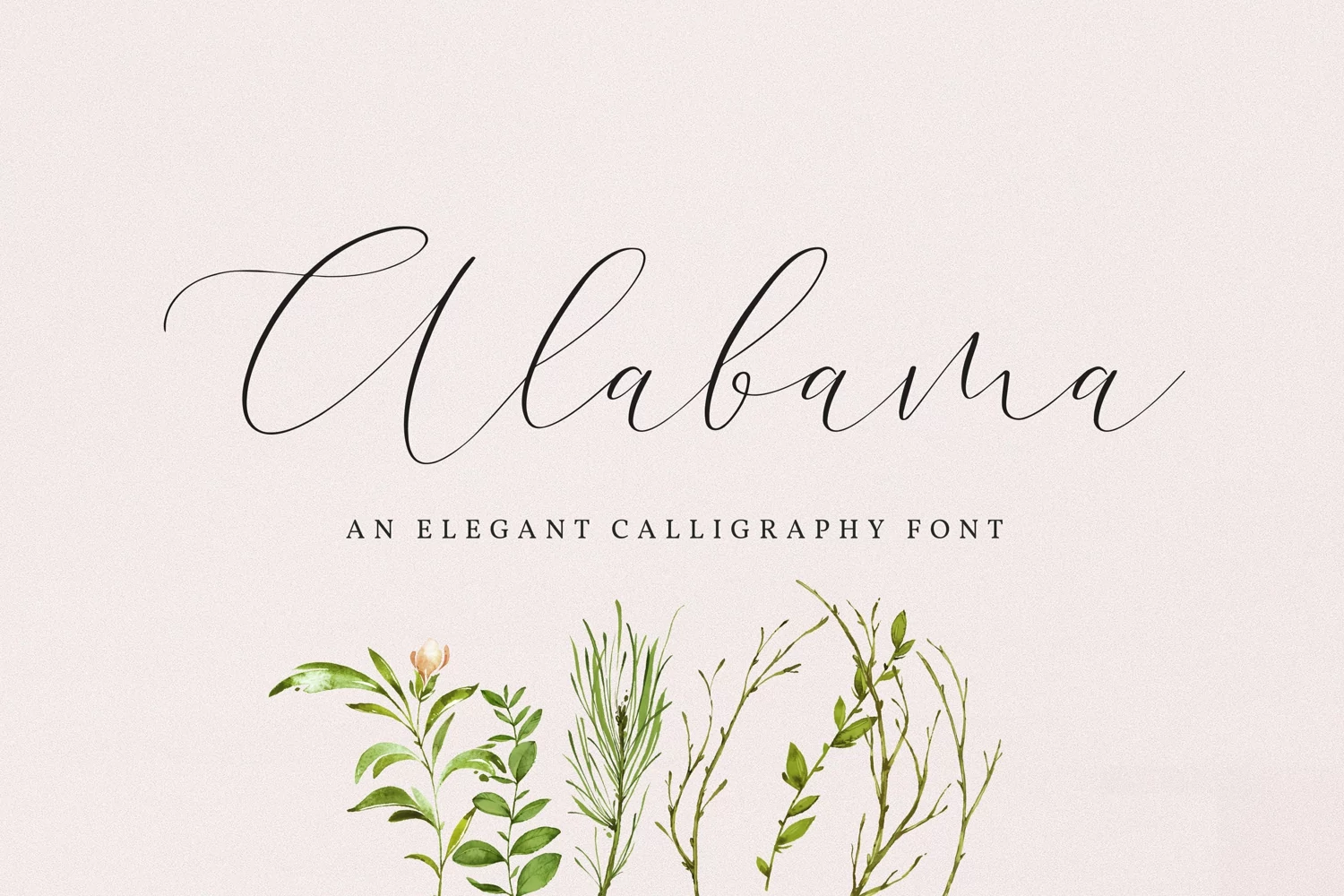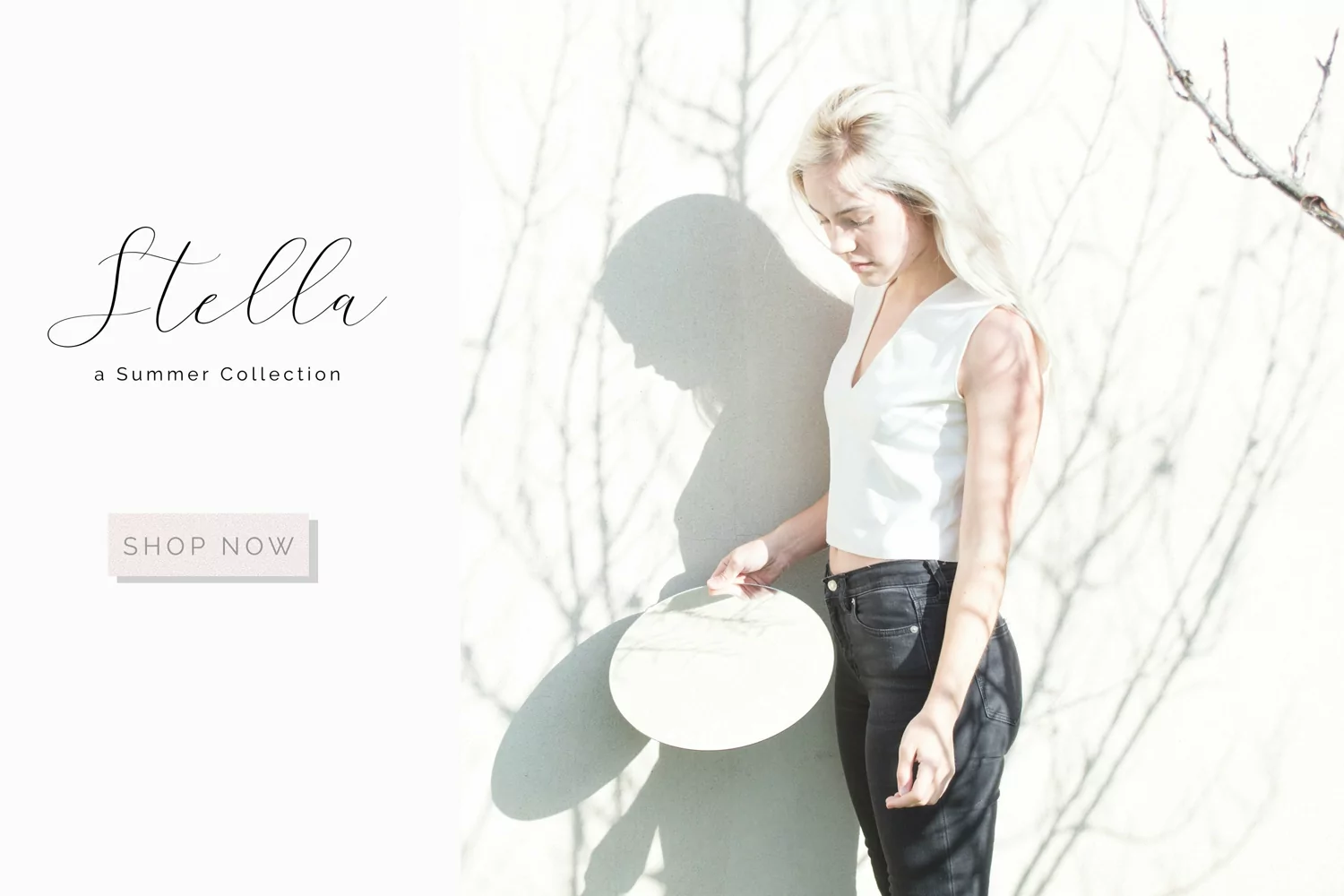
Introducing the elegant Alabama script font! For those of you who are needing a touch of elegance and modernity for your designs, this font was created for you! This font works best in a program that supports OpenType features such as Adobe Indesign, Adobe Illustrator CS, or Adobe Photoshop CC. However, if you have older versions of these programs.What's Included